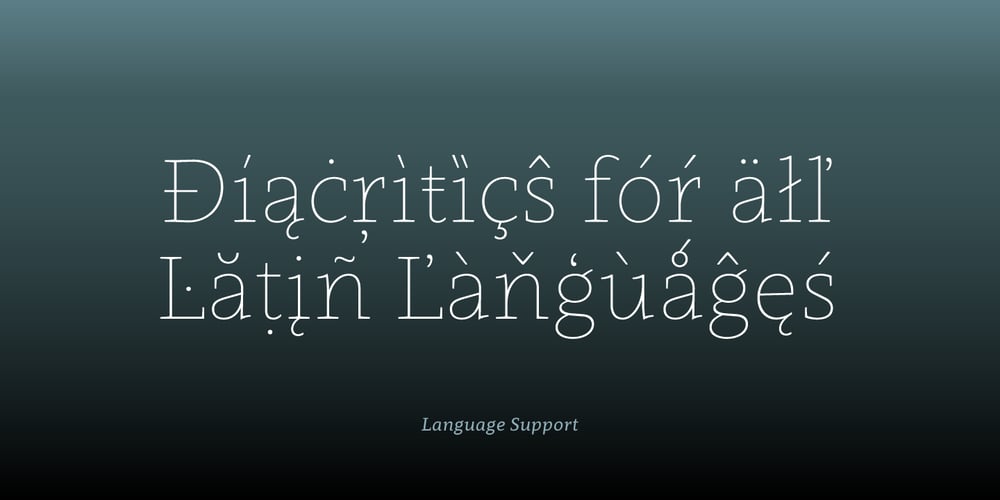
Clavo
Clavo font
Clavo Font Family was designed by Michał Jarociński and published by Dada Studio. Clavo contains 20 styles and family package options. Clavo was picked for the EXHIBITION CALL FOR TYPE – NEW TYPEFACES and is presented in the Gutenberg Museum in Mainz, Germany. Clavo is a multipurpose font family. Its warmth comes from subtle details, classical proportions and traditional forms, while harmonious structure prevents distraction while reading. This makes Clavo a universal typeface. In all sizes, from caption to display. The family consists of ten weights. They were not created in a linear way. The steps between the weights were adjusted carefully to avoid a mechanical graduation, in favor of optical harmony. Clavo covers all latin languages. It contains a wide set of numerals, small capitals, fractions and other OpenType goodies. And of course every weight comes with matching italics.